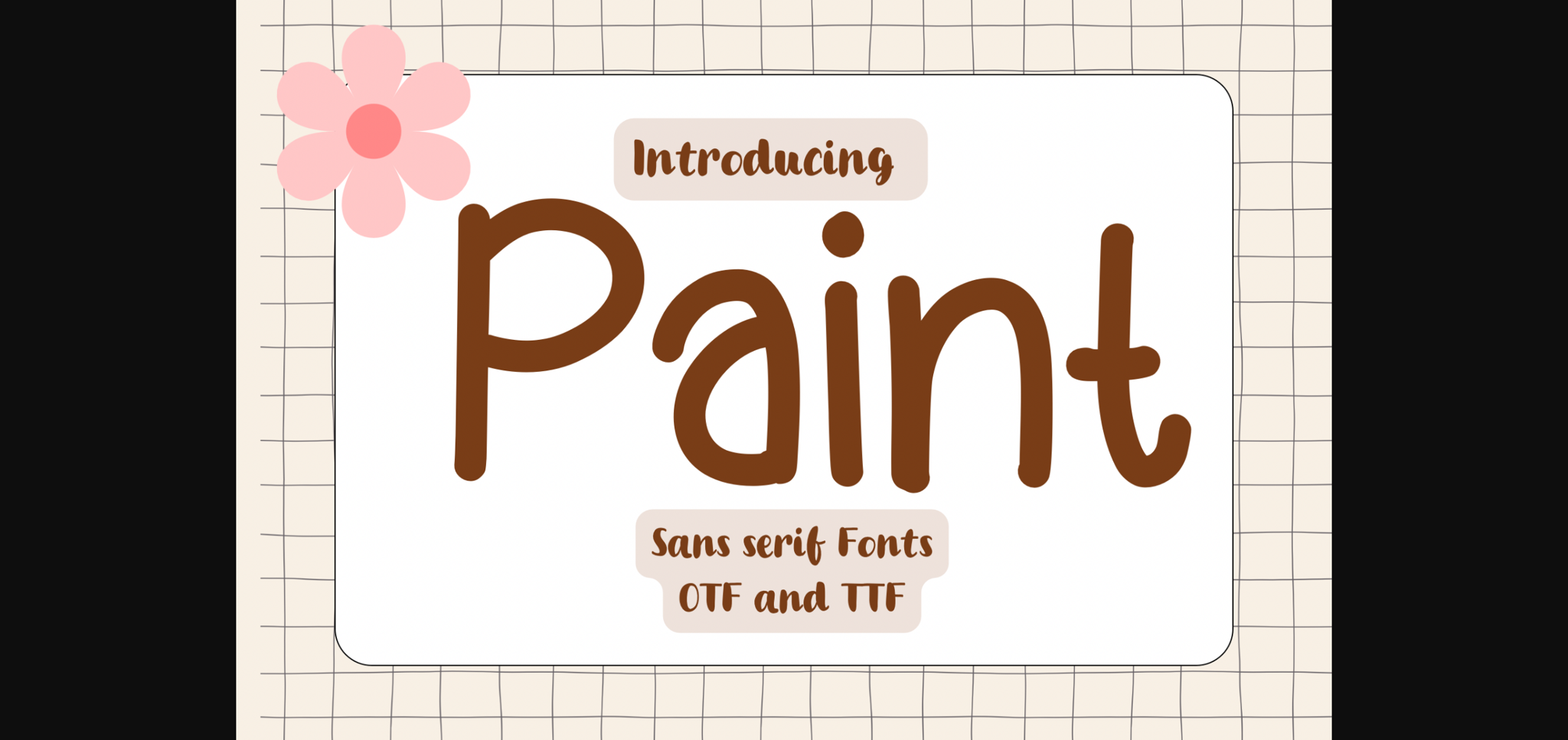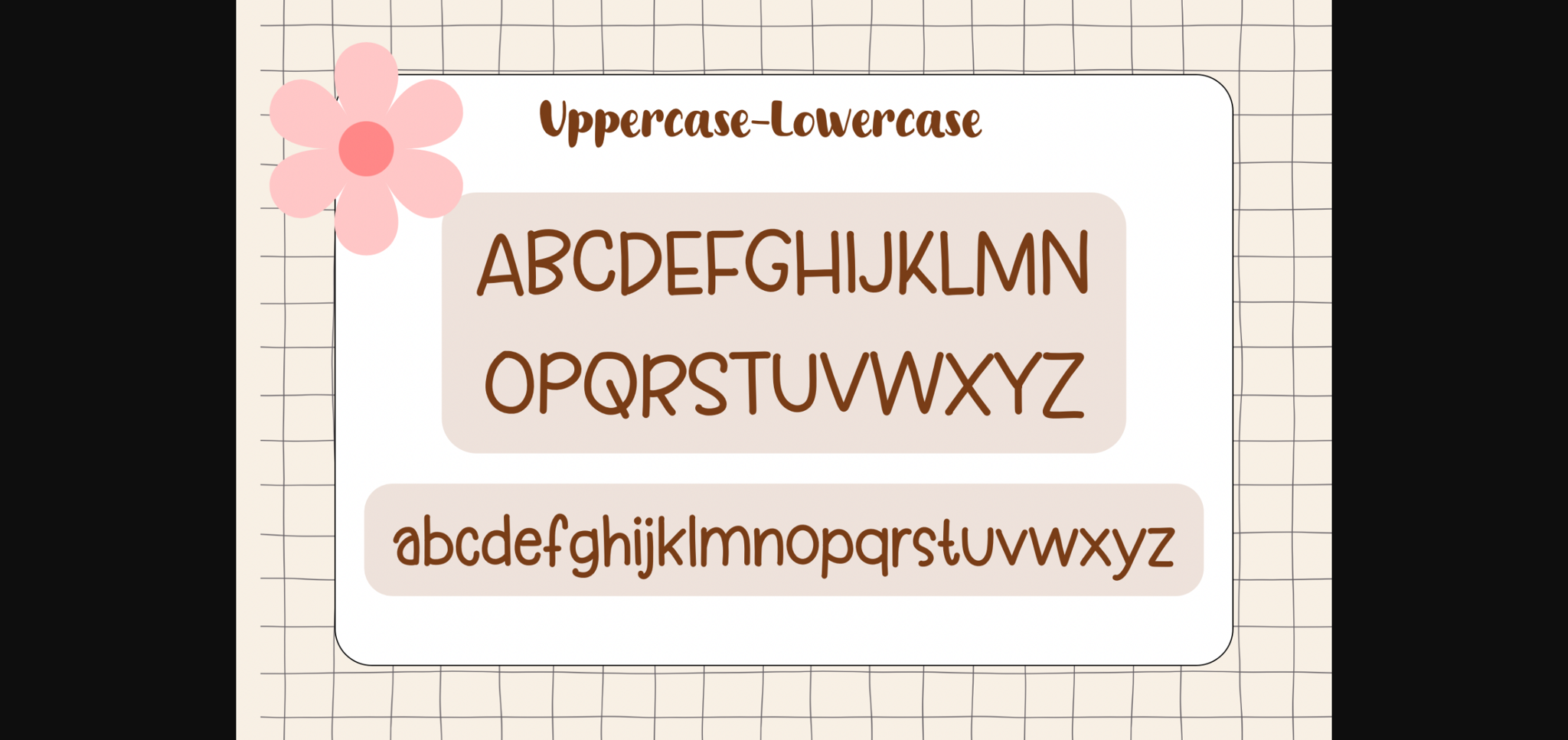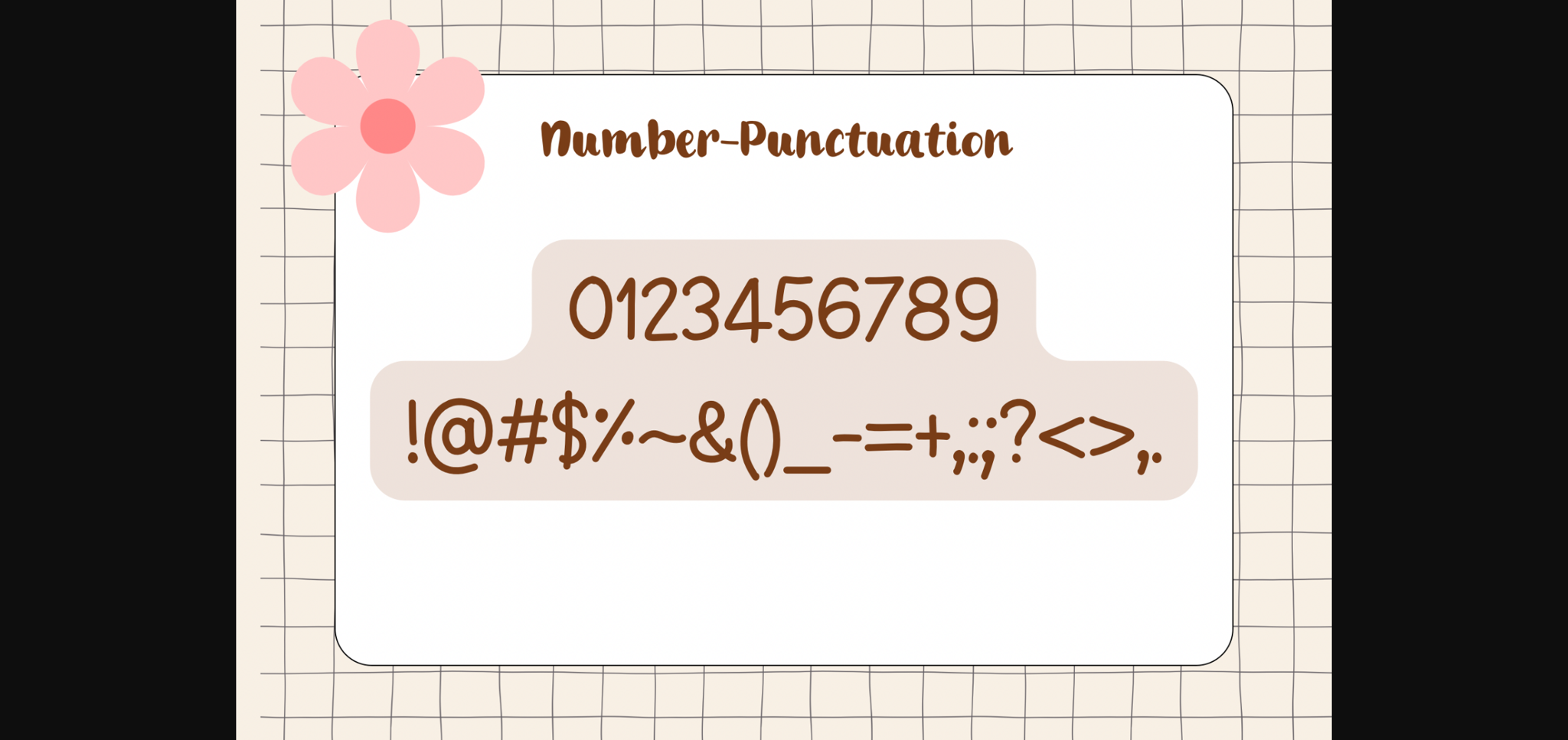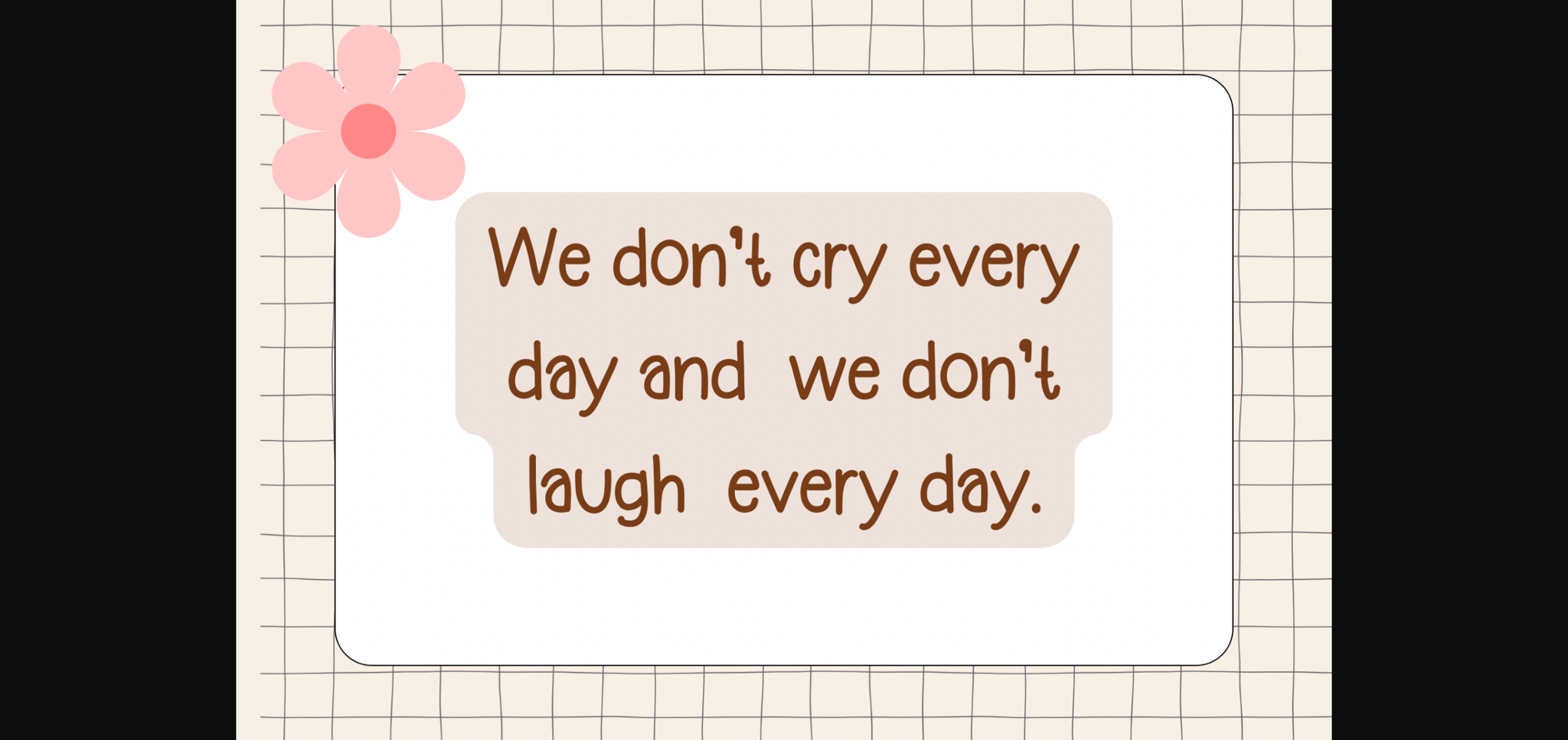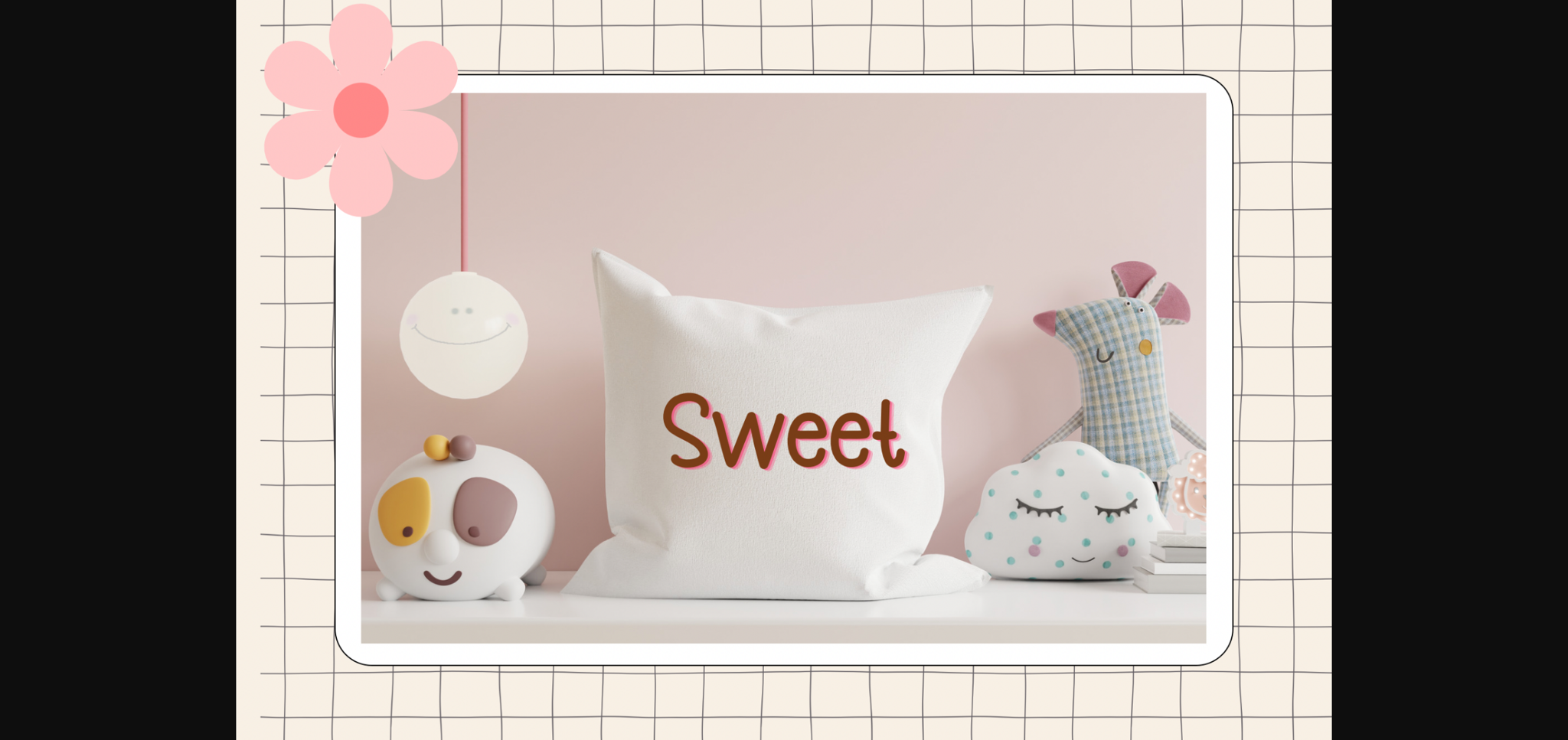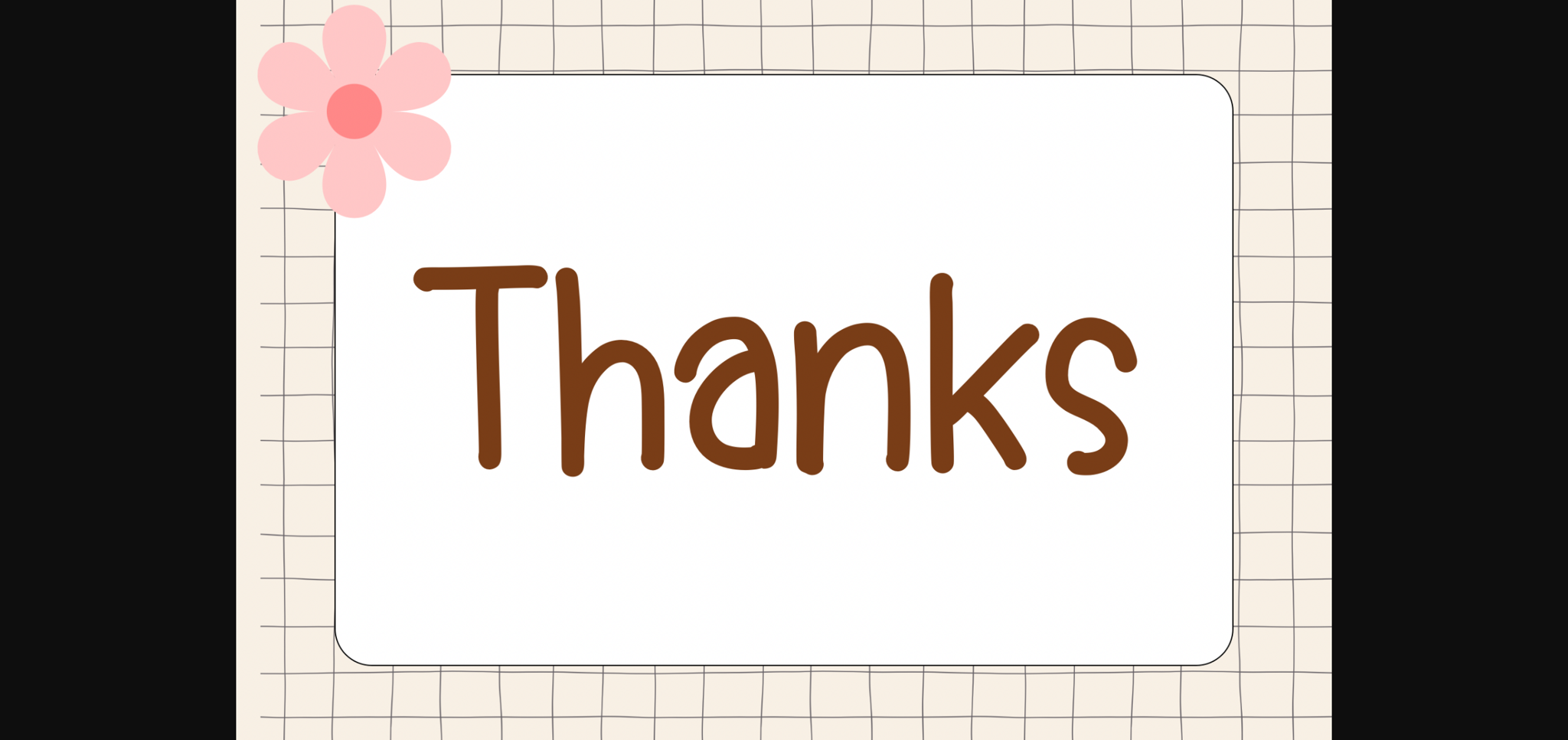
Paint Font
About Paint Font
Paint is a fun and quirky sans-serif font that splashes creativity across your designs. With playful letterforms and a spontaneous vibe, it exudes an artistic and lighthearted charm. Ideal for projects seeking a bold and unconventional aesthetic, Paint adds a vibrant and energetic flair to your creative expressions.